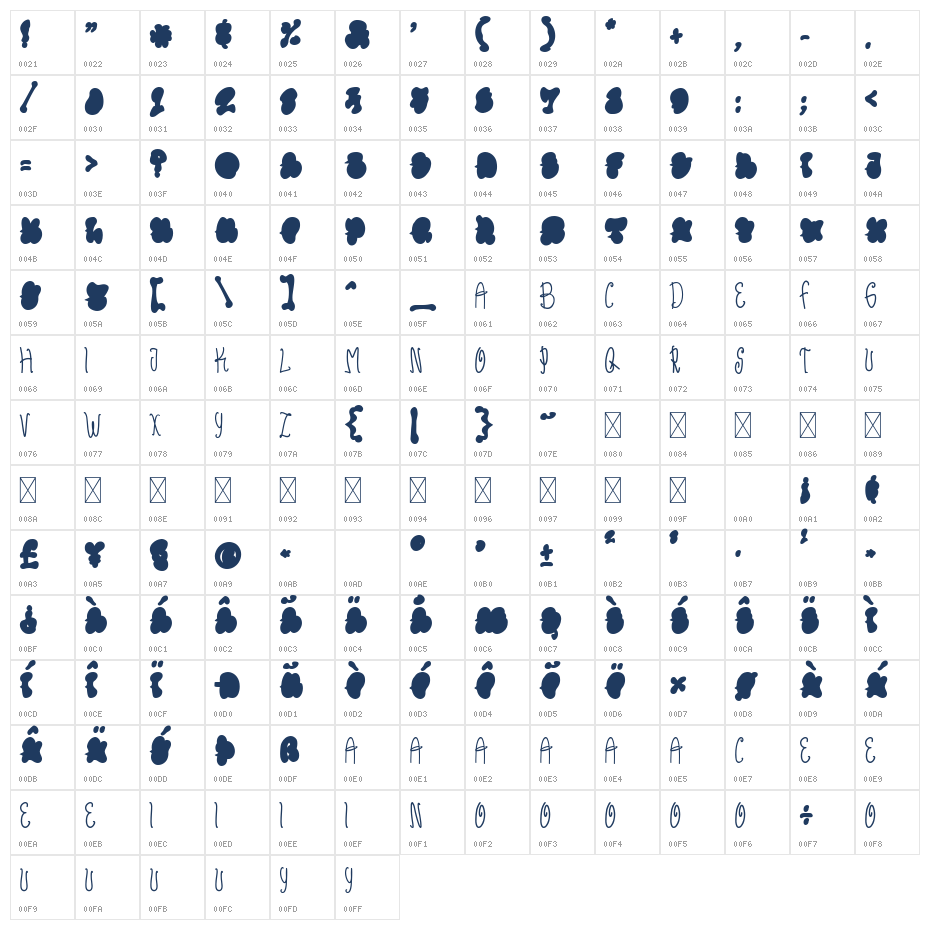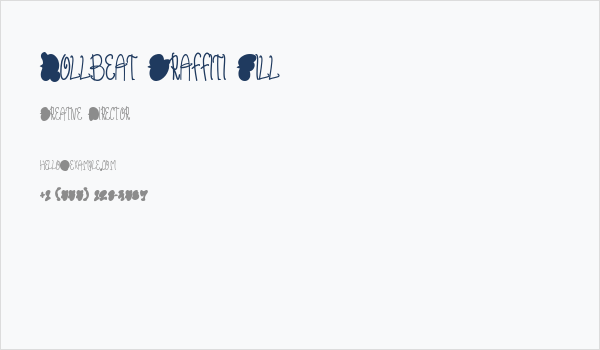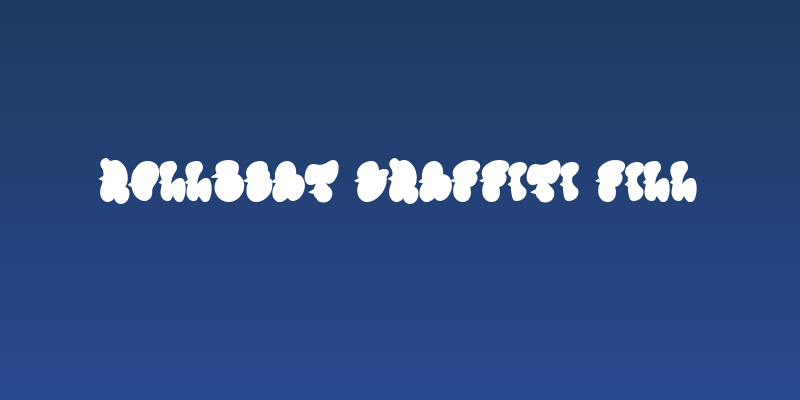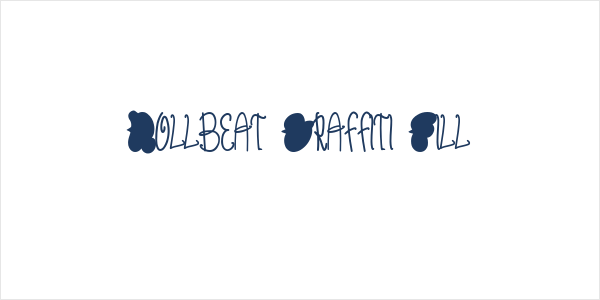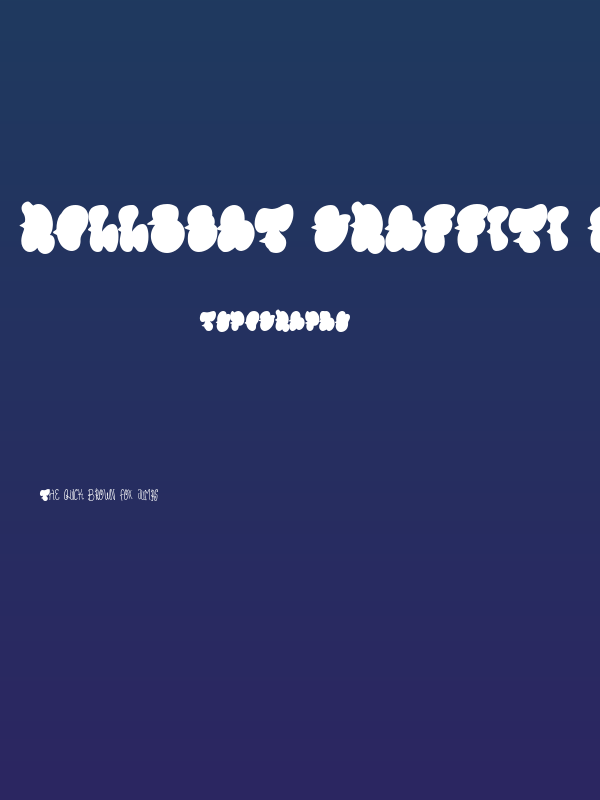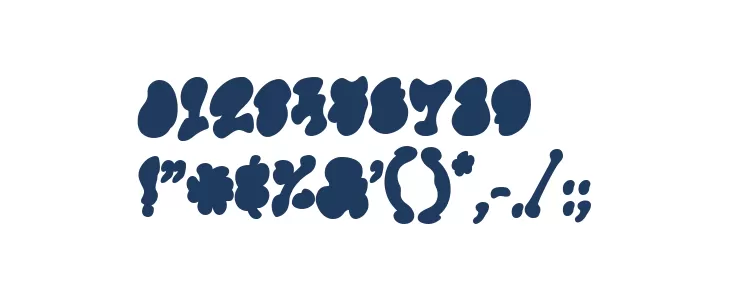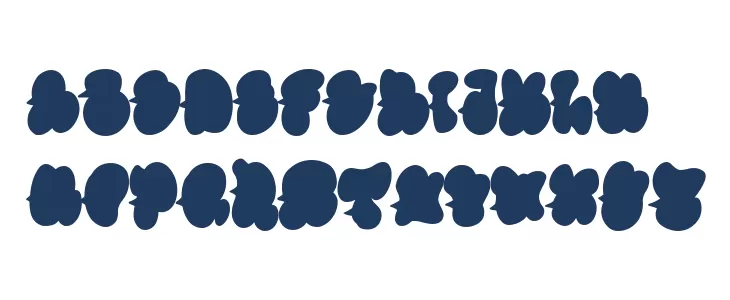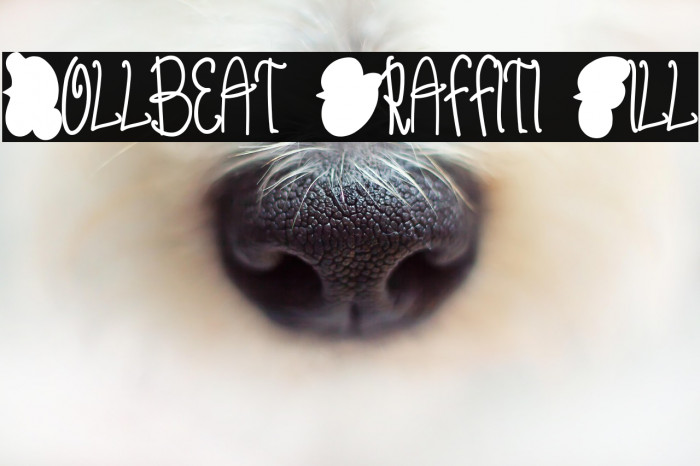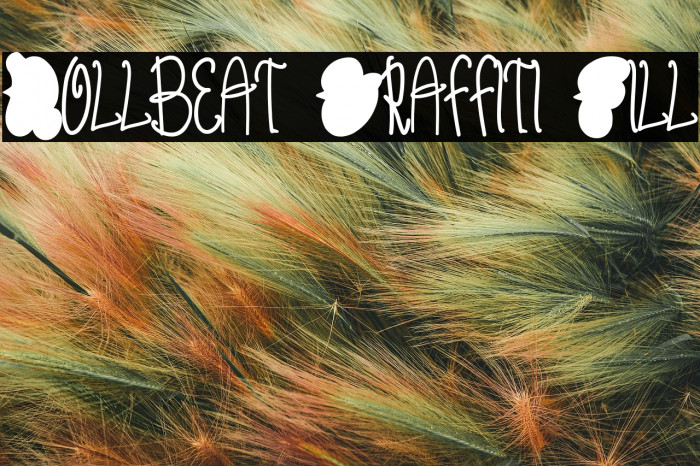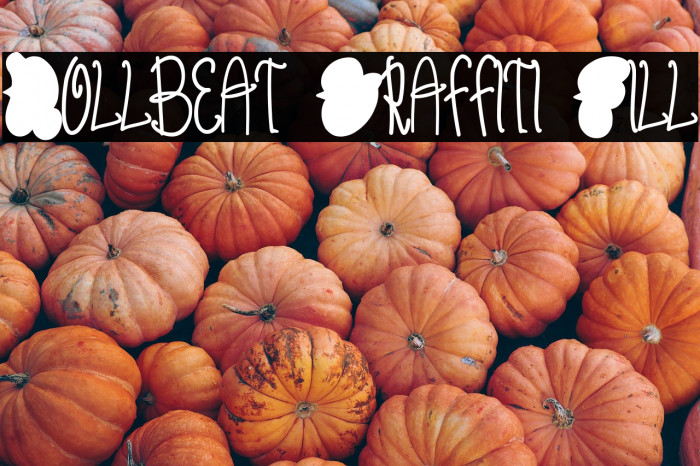
Rollbeat Graffiti Fill Font
Rollbeat Graffiti Fill Description
A playful, bubbly, and rounded font with a bold appearance for the uppercase and numbers, combined with a thin, whimsical, handwritten style for the lowercase alphabet and special characters.
| Overall Style | Playful, Whimsical, Casual |
| Use Case | Headlines, Titles, Children's materials, Creative branding |